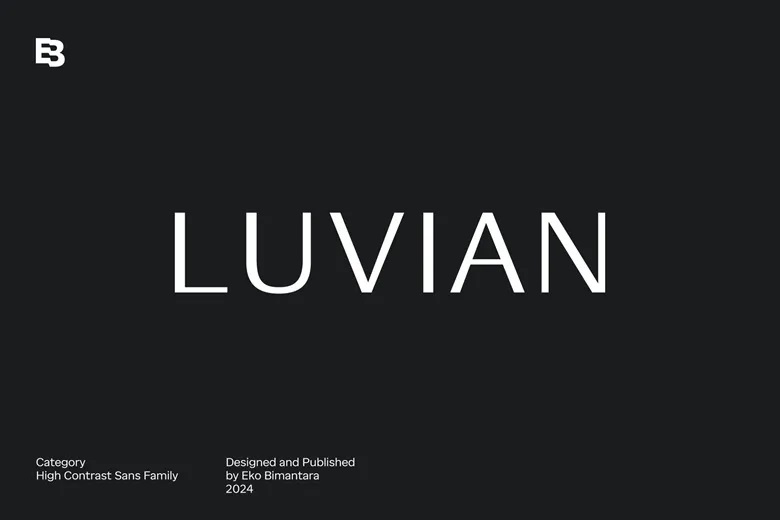
Luvian Font
Luvian is a high-contrast sans-serif font family with elegant letterforms and a strong visual style. It mixes classic charm with a modern feel, making it a great fit for displays, headers, layouts, logos, websites, branding, packaging, and text.
Its clean design works well in many creative projects, so Luvian is a strong option for designers who want a font that is both stylish and flexible.
Luvian Sans Serif Font Family